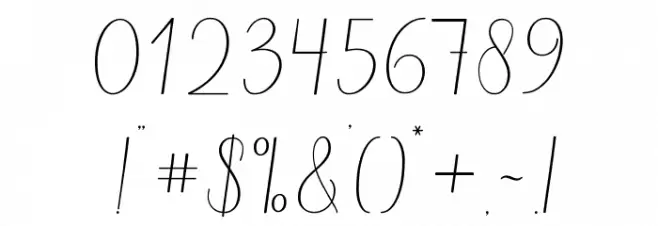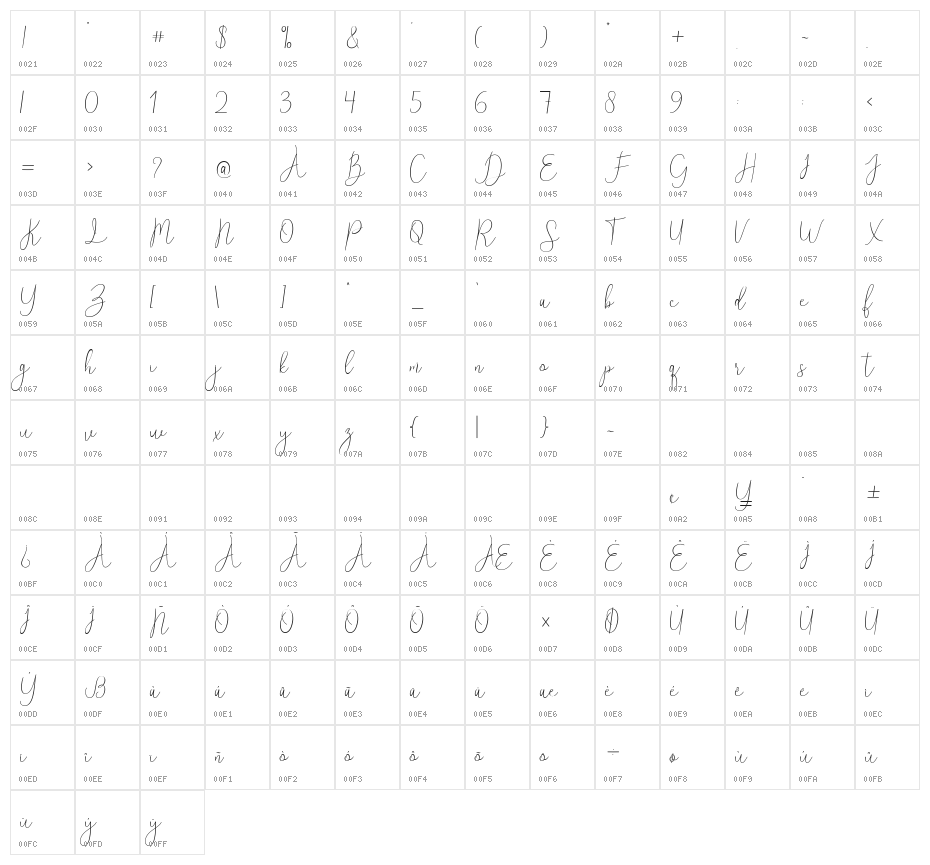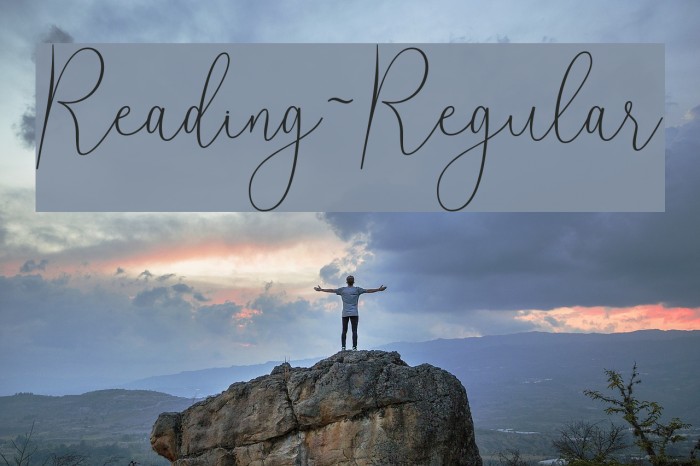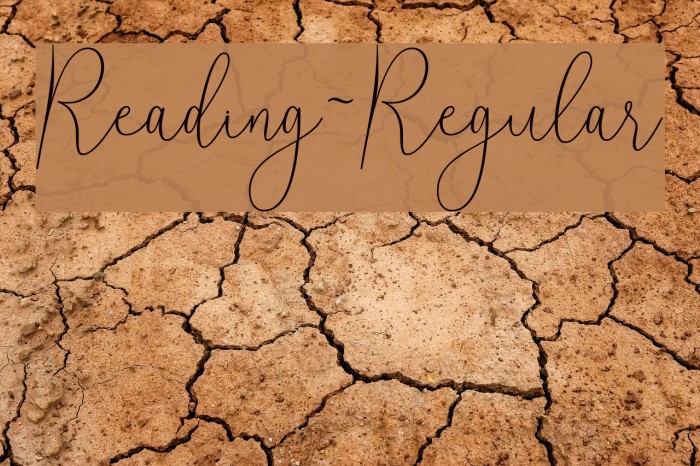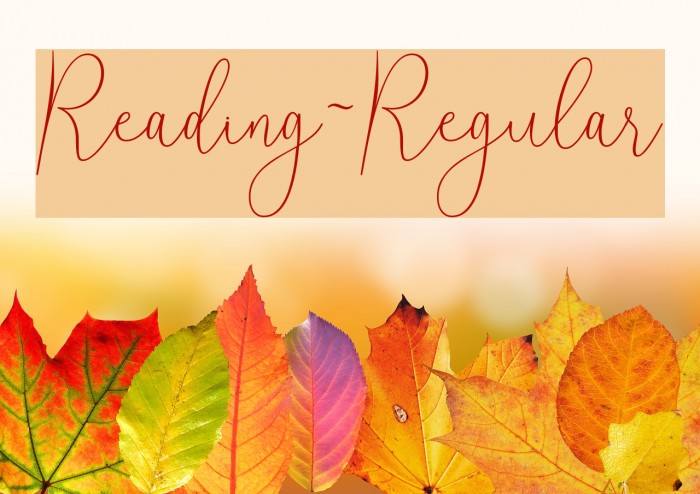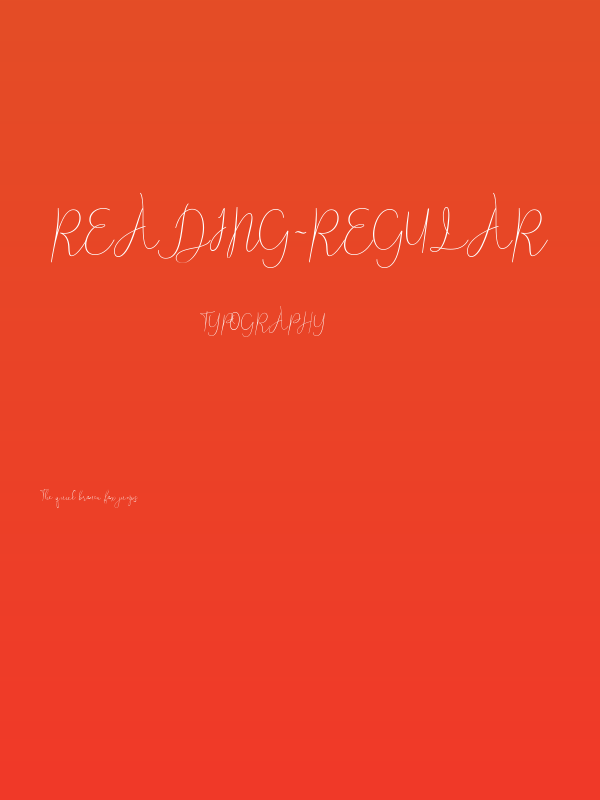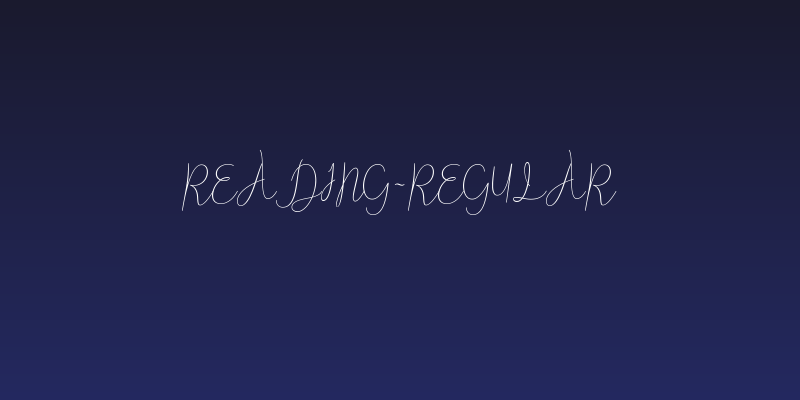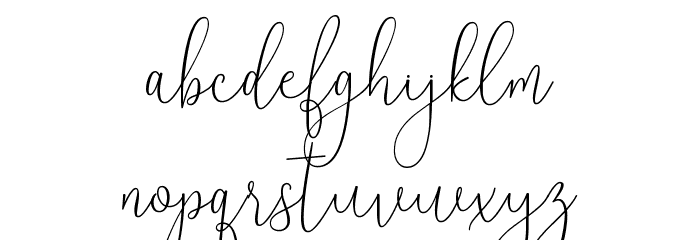
Reading-Regular Font
Reading-Regular Description
This elegant script font features a flowing, handwritten style with delicate, elongated strokes that give it a graceful and sophisticated appearance. The characters are connected with smooth, fluid lines, creating a sense of continuity and movement. The uppercase letters are tall and slender, while the lowercase letters maintain a consistent height, enhancing readability. The numerals and special characters are designed with the same attention to detail, ensuring a cohesive look across all elements. This font exudes a sense of refinement and charm, making it ideal for projects that require a touch of elegance.
| Overall Style | Elegant, Sophisticated |
| Proposed Projects | Perfect for wedding invitations, elegant branding, personal stationery, and high-end product packaging. |